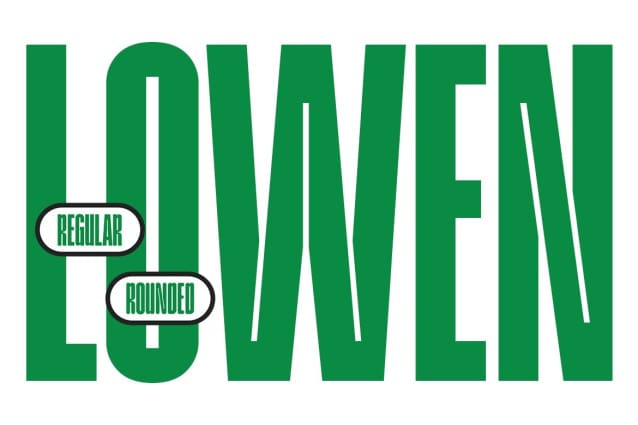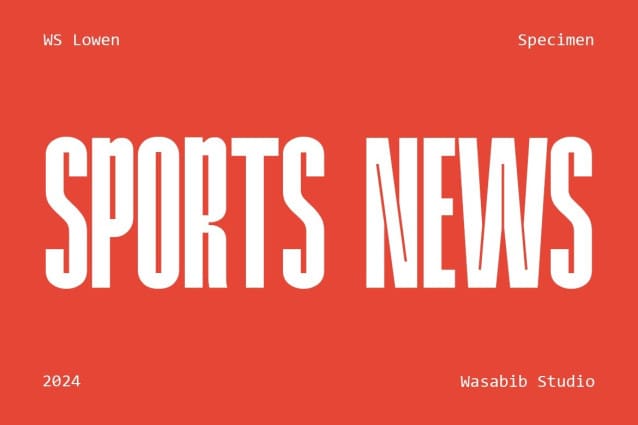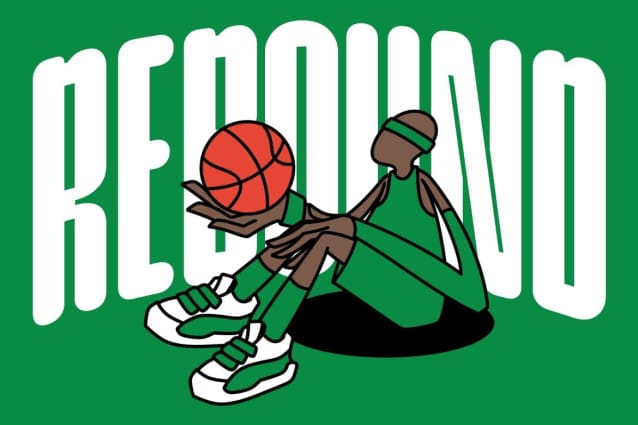
WS Lowen Font
WS Lowen Font is a modern display font available in two styles: regular and rounded. The font is designed to attract attention and make an impact, making it ideal for the display typeface category, where the main objective is to get noticed.
Both WS Lowen models feature a modern, clean design that is readable and effective in attracting attention. The font’s clean lines, well-defined letter shapes, and plenty of negative space ensure excellent readability, even at small sizes. Both styles provide versatility in design applications, allowing designers to choose between the bold, elegant aesthetic of the classic style or the playful, approachable look of the rounded style.
Overall, WS Lowen is a great choice for designers looking for a modern and versatile display font. With two unique styles to choose from, designers can choose a look that fits their design goals while leveraging the boldness and readability of the font to create a striking visual impact